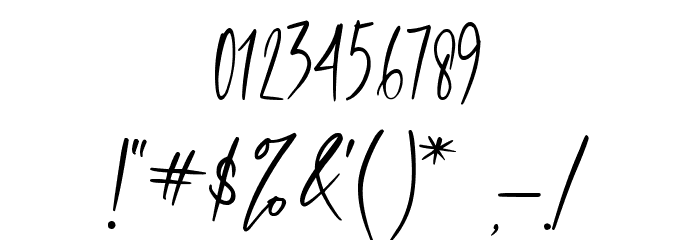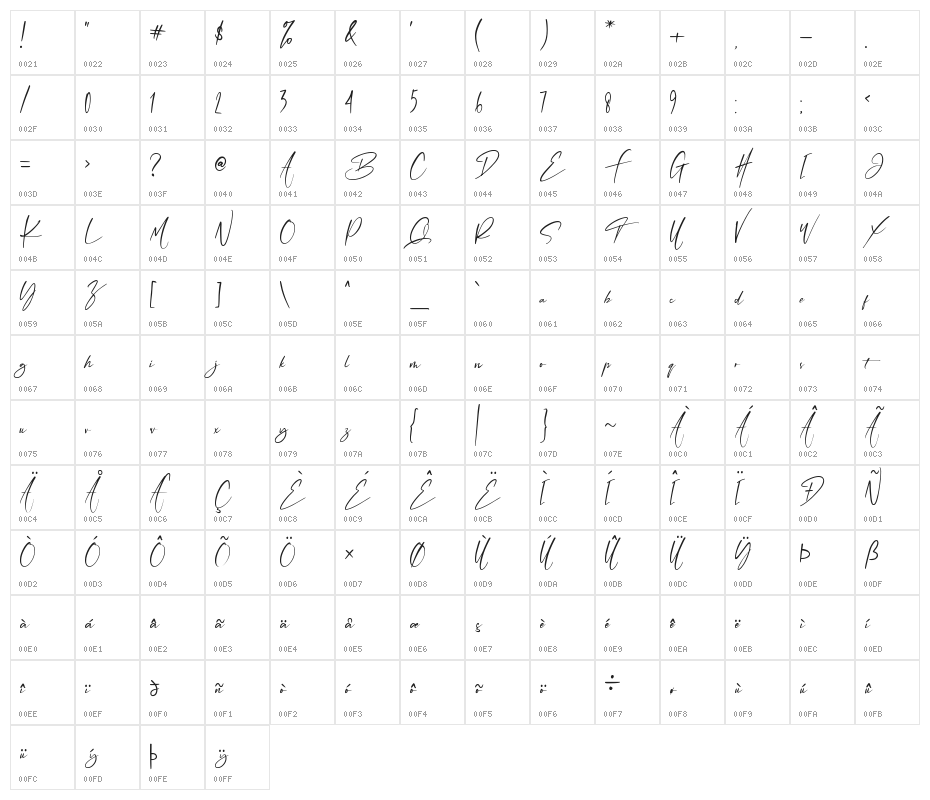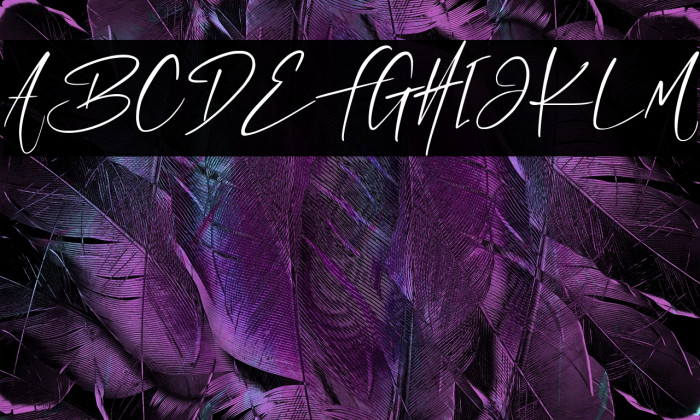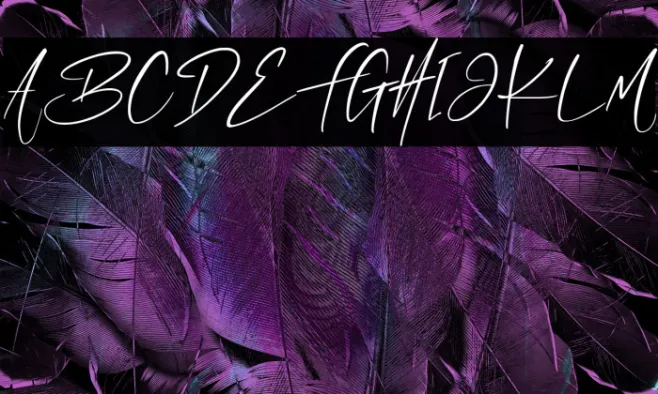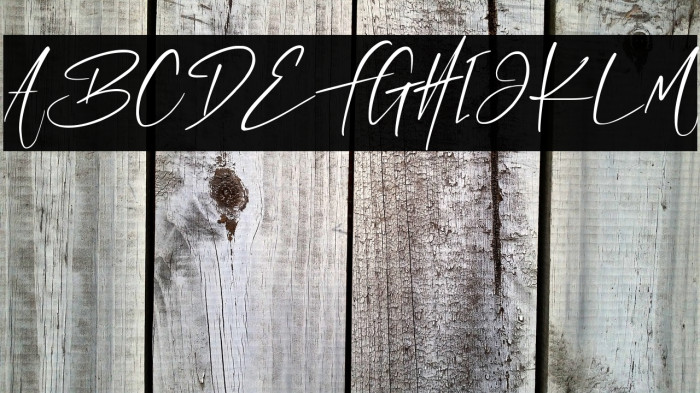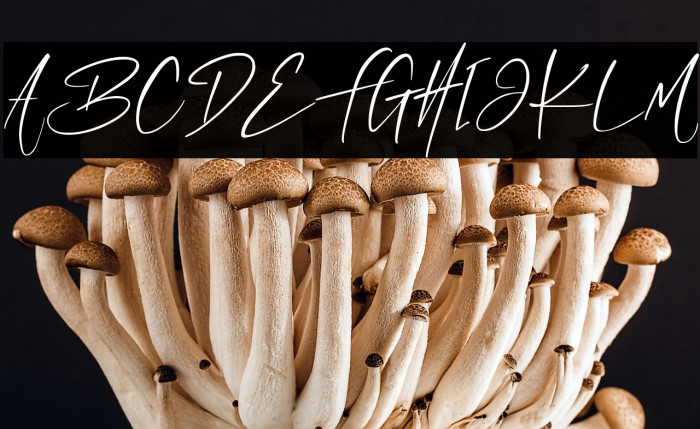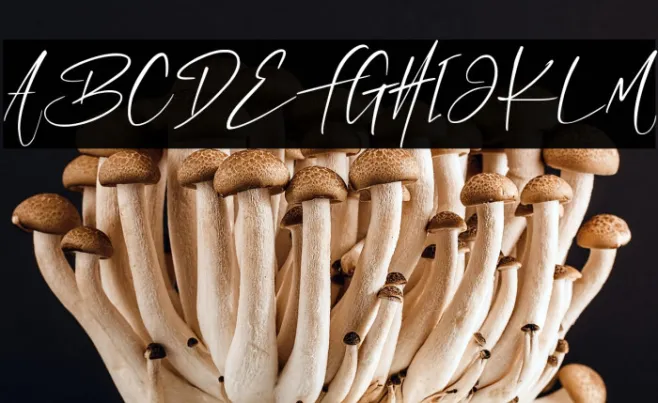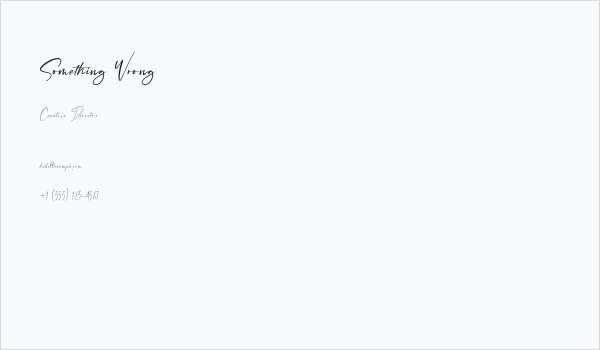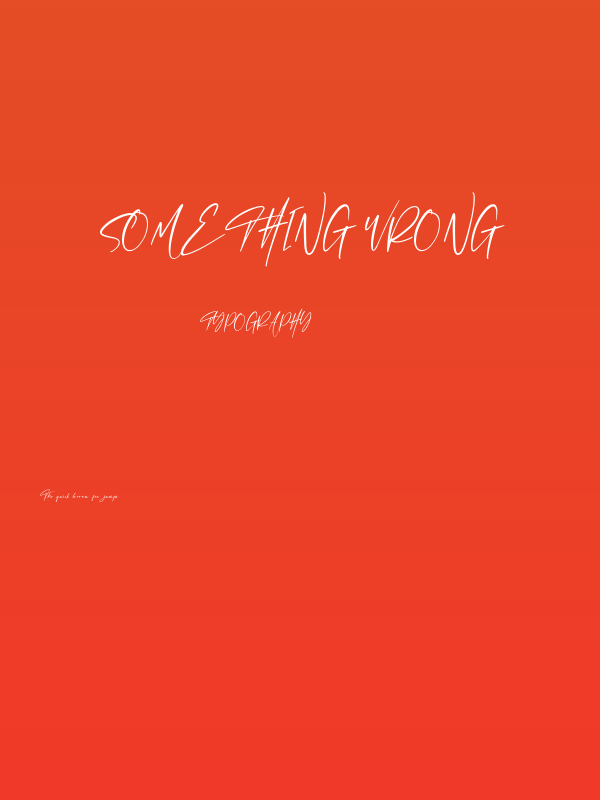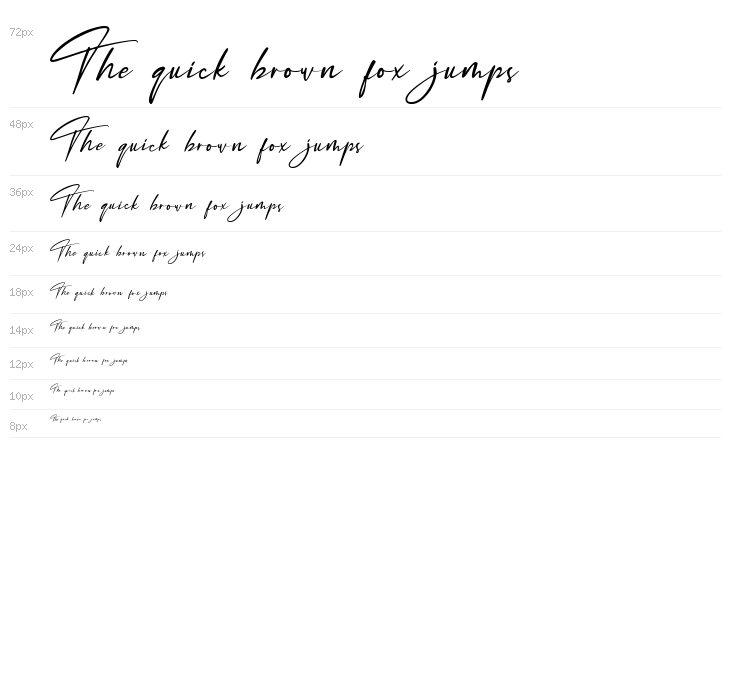
Something Wrong Font
Something Wrong Description
This font features an elegant, flowing script style that mimics the fluidity of natural handwriting. The uppercase letters are bold and expressive, with sweeping curves and varying line thickness that add a dynamic feel. The lowercase letters maintain a consistent style, offering a harmonious blend of legibility and artistic flair. Numbers and special characters are crafted with the same attention to detail, ensuring a cohesive look across all text elements. This font is perfect for projects that require a personal touch, such as invitations, greeting cards, or branding materials. Its unique style is both modern and timeless, making it versatile for various design needs.
| Proposed Projects | Ideal for invitations, greeting cards, branding, and any project needing a personal touch. |